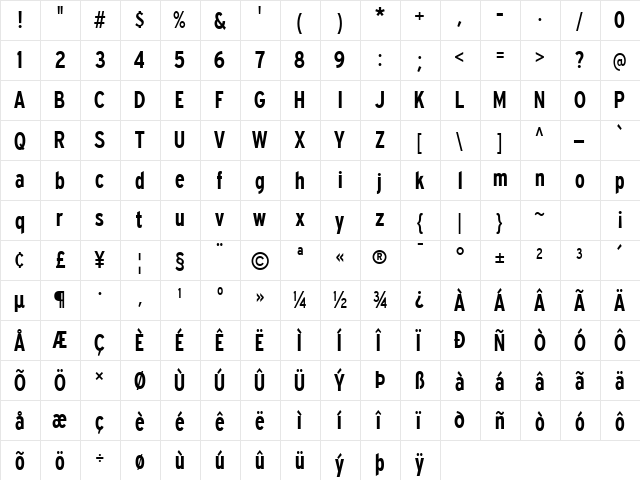
Expressway Condensed Bold
Design Context for Expressway Typeface
Expressway offers clean, dependable letterforms without strong stylistic allegiance, making it a practical choice for designers who need flexibility. Its bold stroke weight gives it real presence on the page. Its narrow stance lets it pack a punch even in space-constrained designs.
Pro Tip: Use Expressway in both headline and body roles to test its range before committing to a single application.